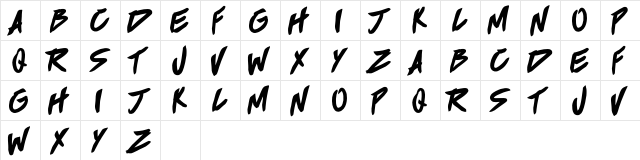
BROKEN HOME Regular
Design Context for BROKEN HOME Typeface
BROKEN HOME is a composed and adaptable typeface that performs quietly and consistently across a wide range of design contexts.